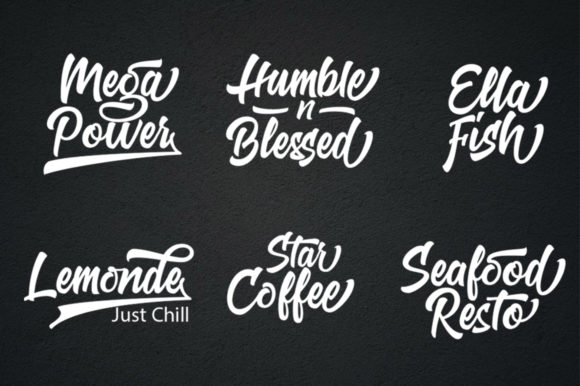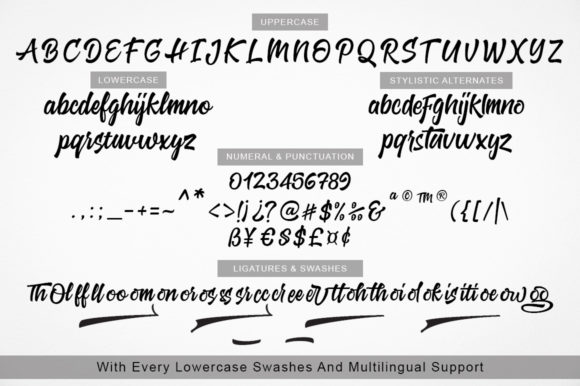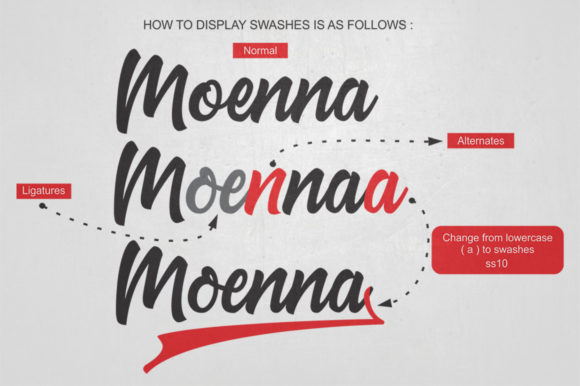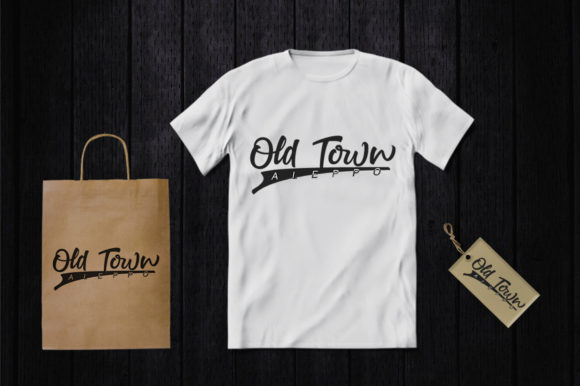
About Moenna Font
Moenna is a lovely handwritten font, cursive and elegant. It looks beautiful on wedding invitations, thank you cards, quotes, greeting cards, logos, business cards and every other design which needs a handwritten touch.